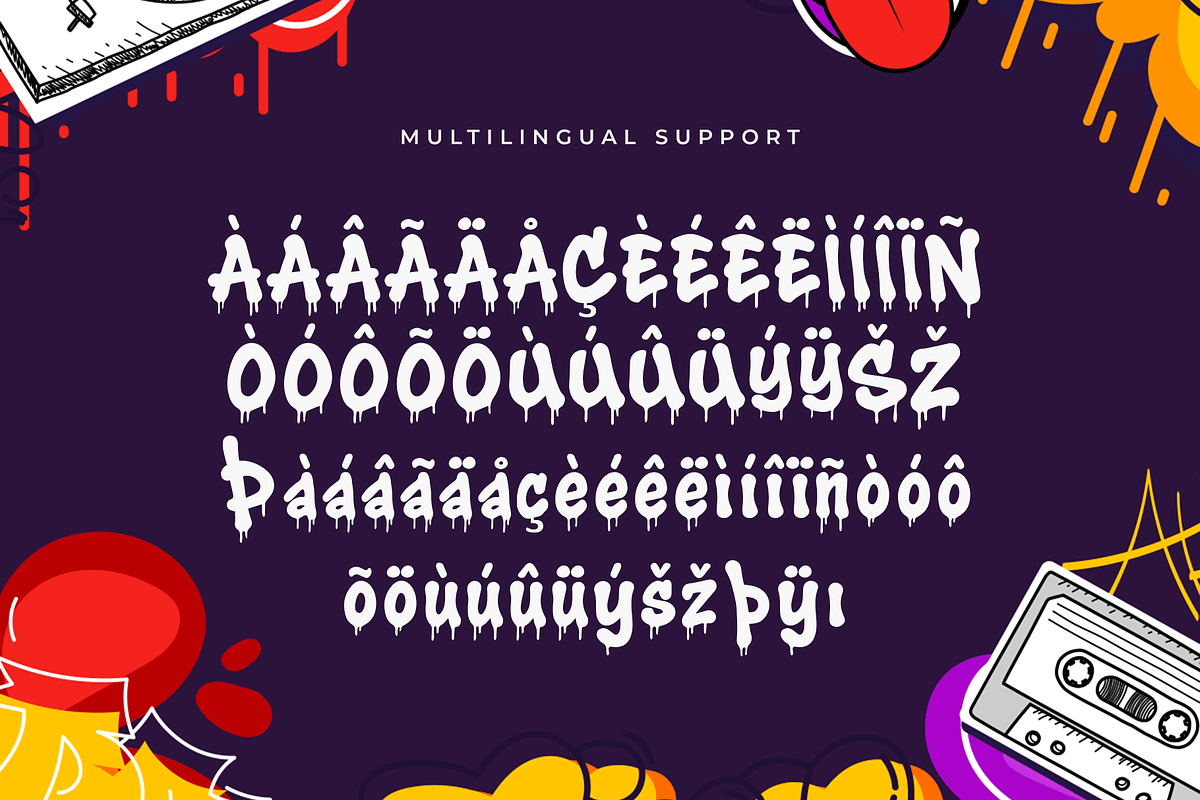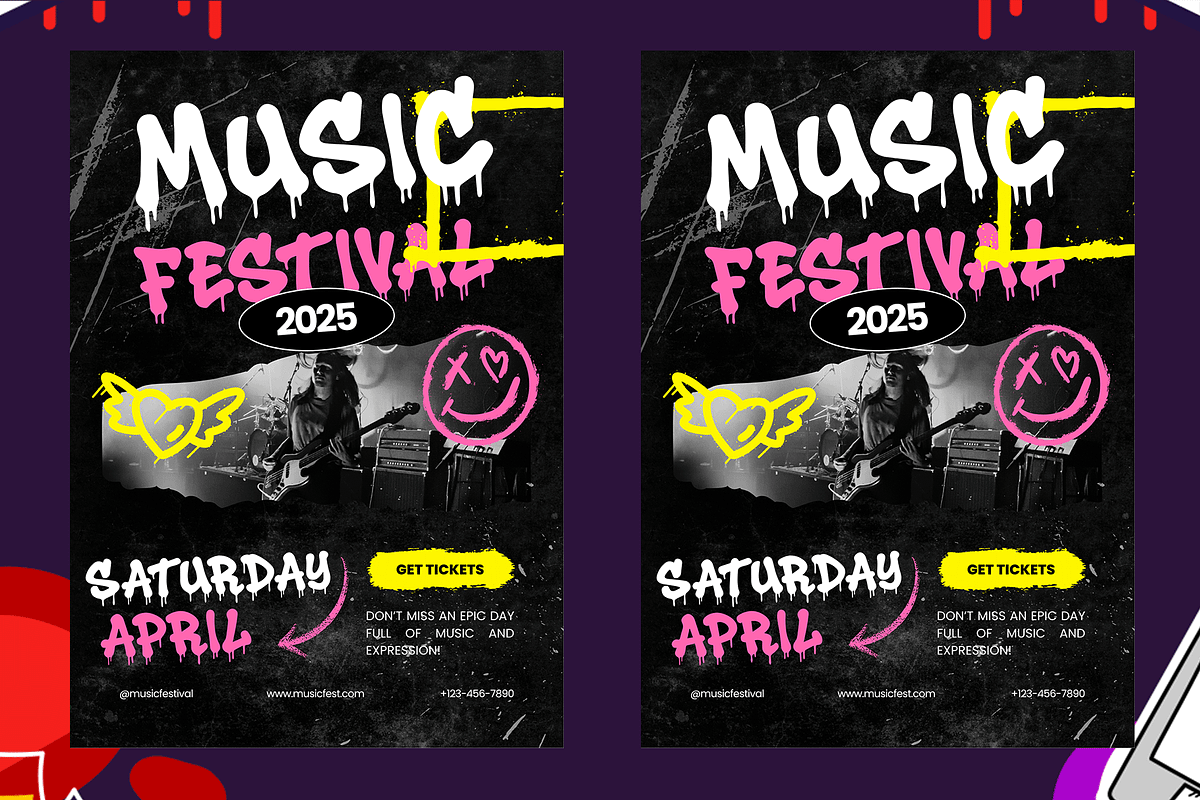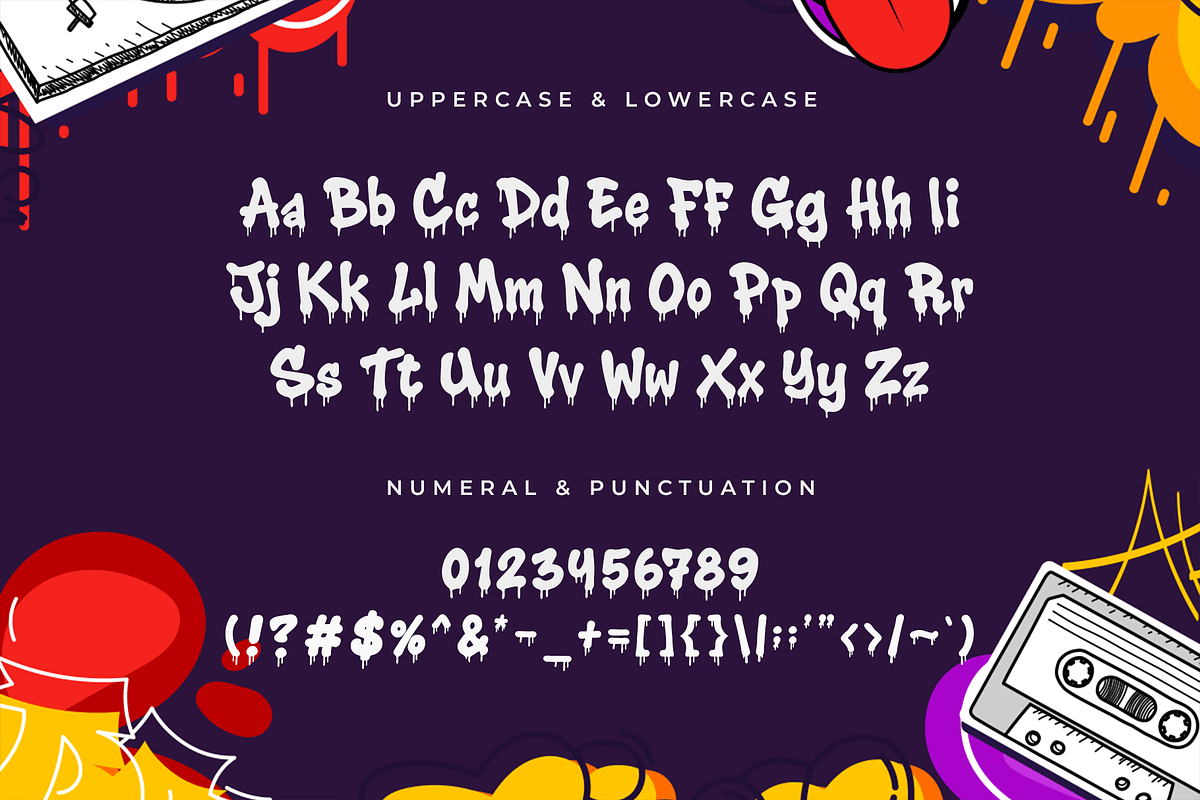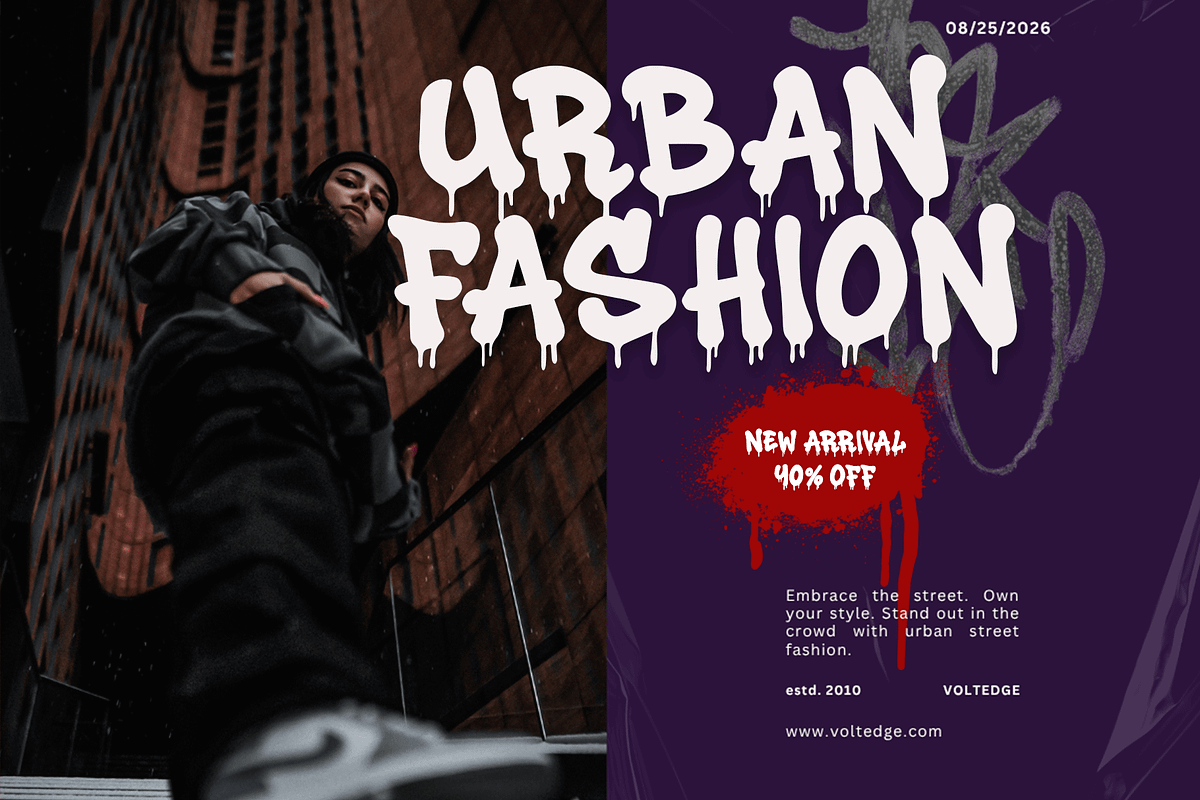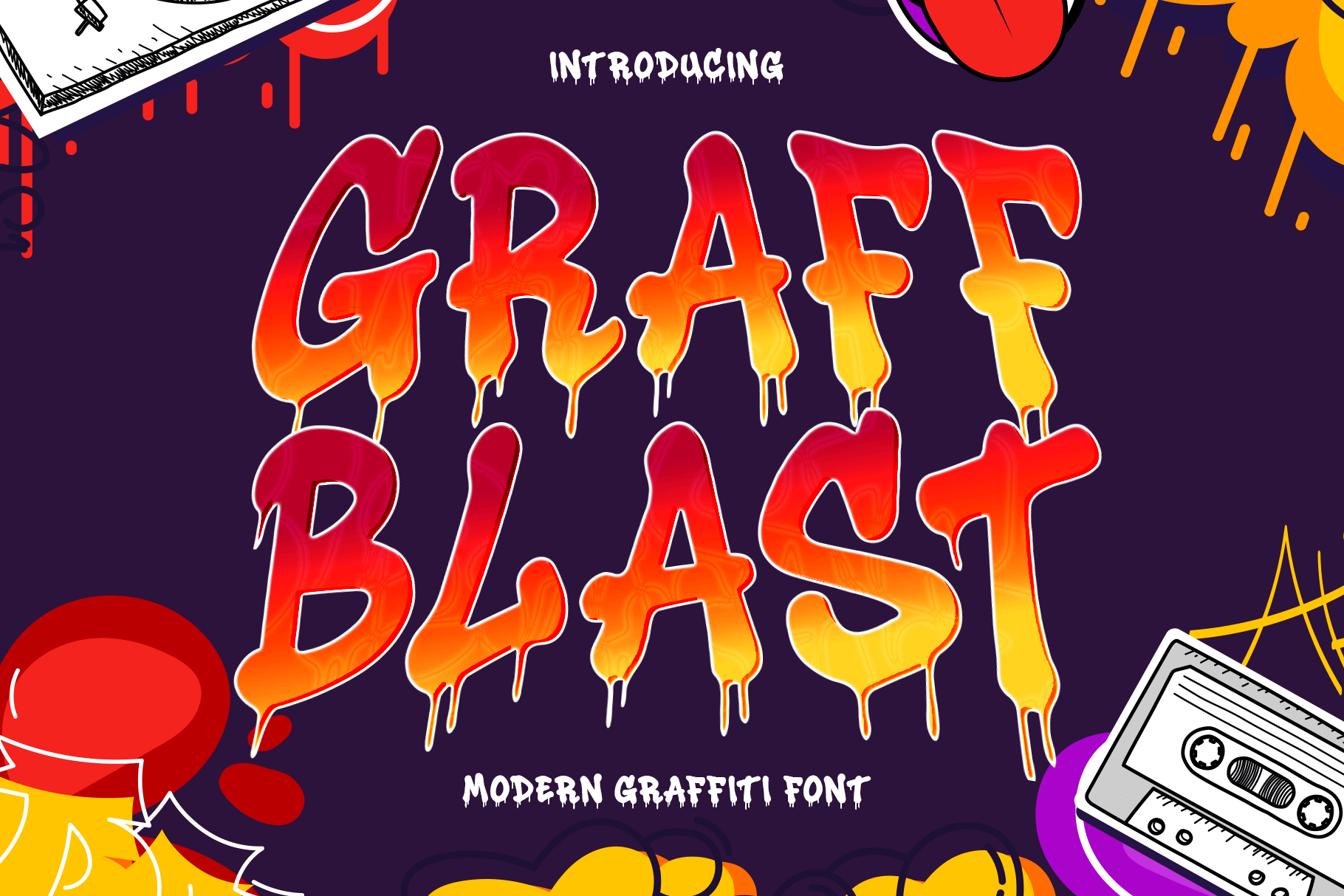
Graff Blast – A Modern Graffiti Font
Graff Blast is a modern graffiti font that explodes with attitude, street vibes, and raw creative power. Inspired by urban art and hip-hop culture, this font brings a dynamic, edgy look to your designs with bold strokes, paint splatters, and expressive curves that mimic authentic graffiti tags.
Perfect for streetwear branding, music covers, event posters, skateboard designs, social media graphics, and more Graff Blast is designed to make your message stand out loud and proud. It combines urban toughness with modern readability, making it both stylish and functional.
Whether you're aiming for rebellious flair or creative street energy, Graff Blast will spray your designs with a punch of personality and a rush of adrenaline.